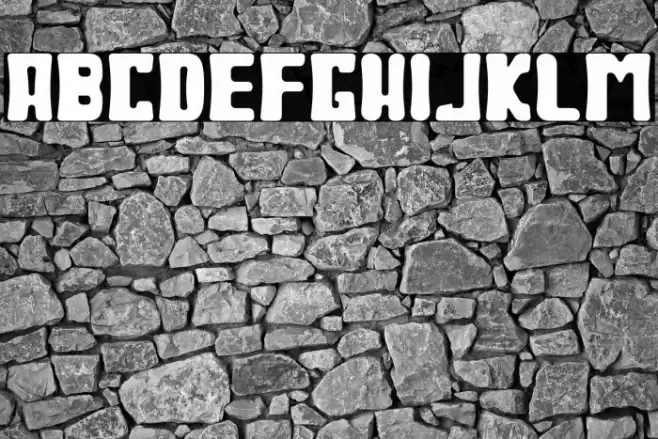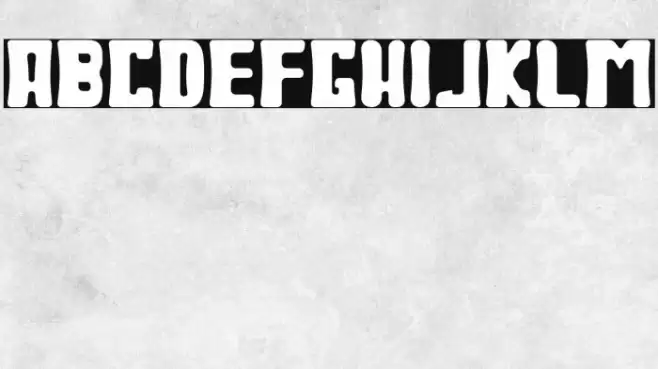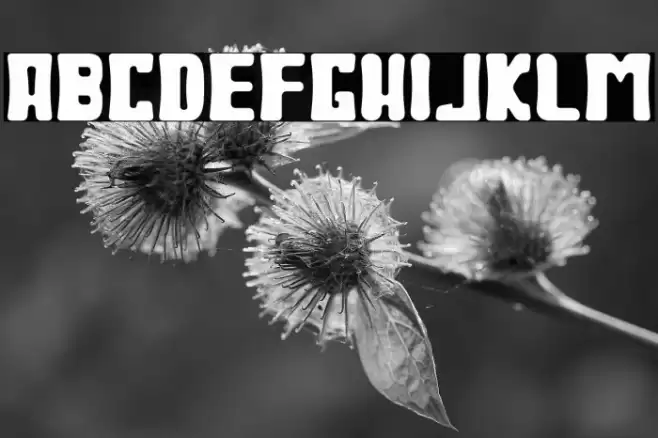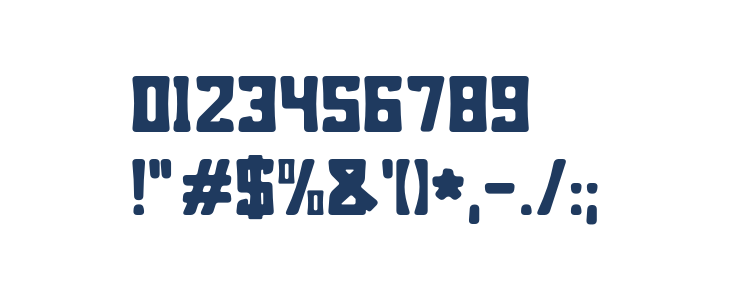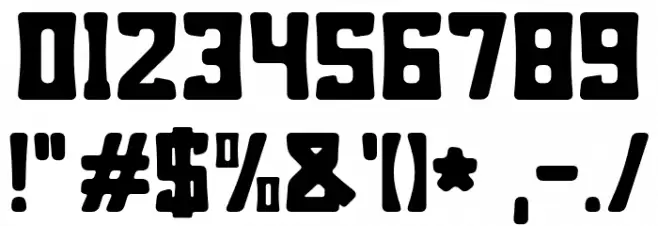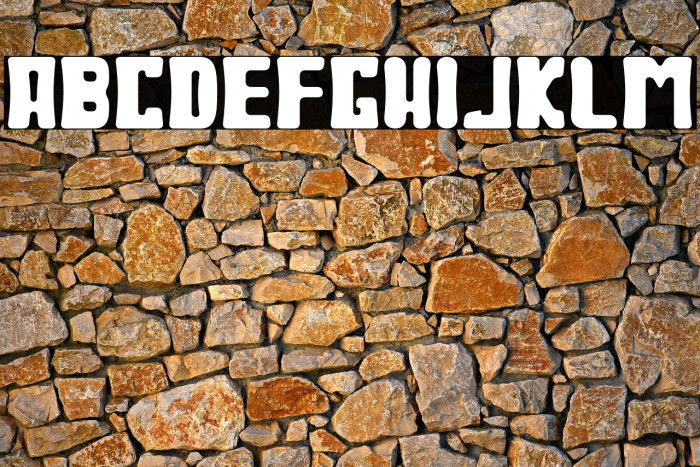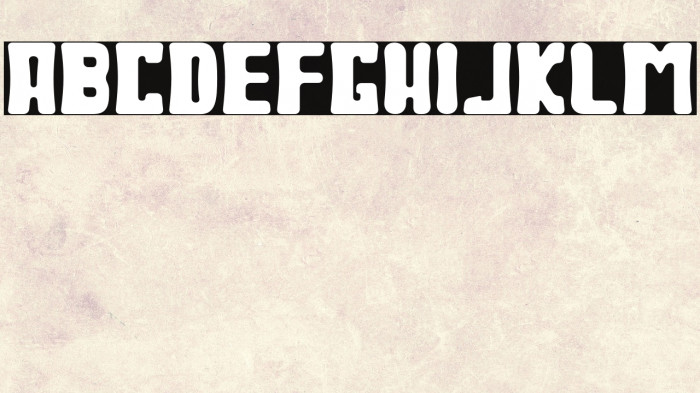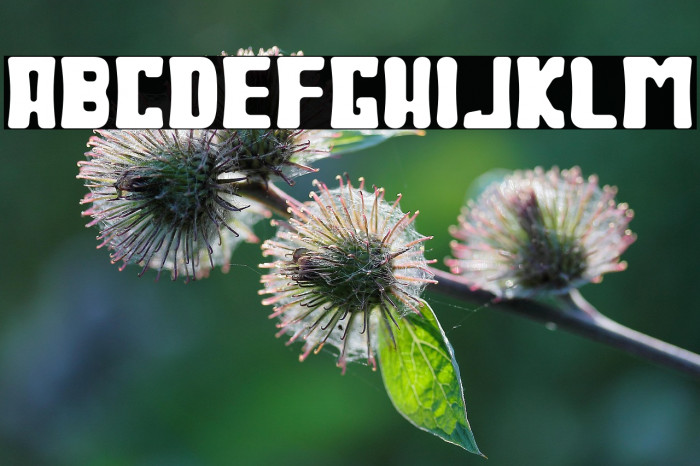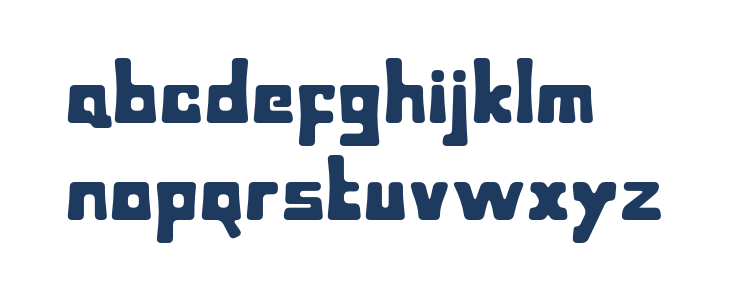
BodaxBold Font
BodaxBold Description
This font features a bold and chunky design with a playful and slightly retro aesthetic. The characters are heavily weighted, giving them a strong presence on the page. The strokes are thick and uniform, contributing to a robust and sturdy appearance. The overall style is somewhat whimsical, with rounded edges and a slightly irregular form that adds a touch of personality. The font maintains a consistent height across both uppercase and lowercase letters, ensuring readability while retaining its distinctive style. It is well-suited for creating eye-catching headlines or titles that require a bold statement.
A bold, chunky font with a playful, retro aesthetic and thick, uniform strokes from Uncategorized fonts.
- Font: BodaxBold
- Proposed Projects: Ideal for posters, logos, and branding materials that require a strong visual impact.
- Overall Style: Retro, Playful